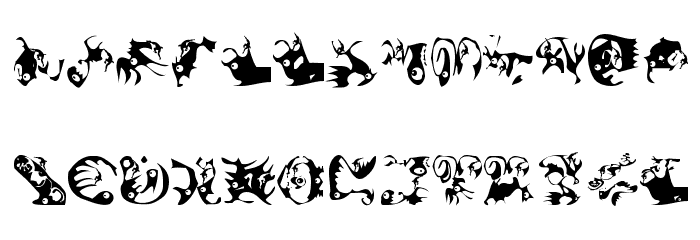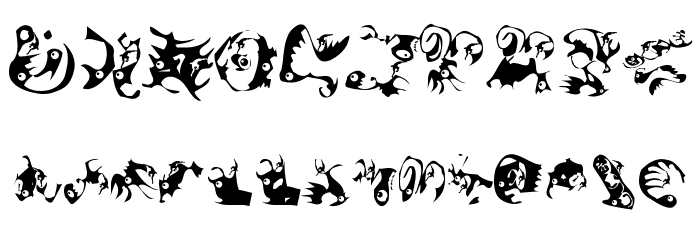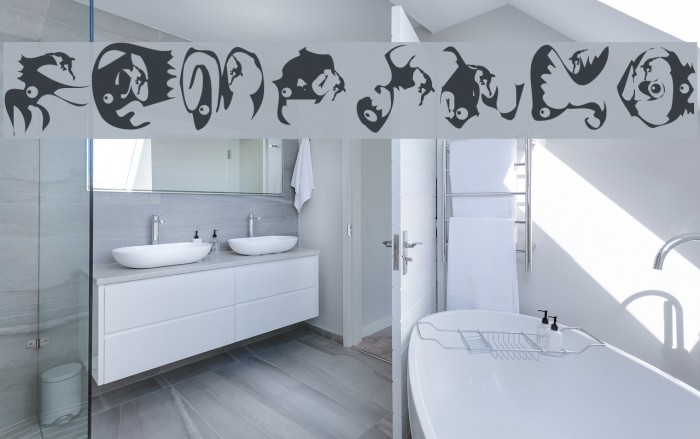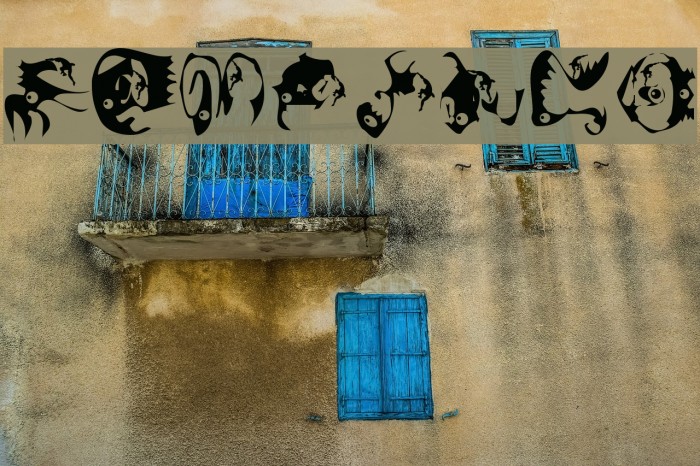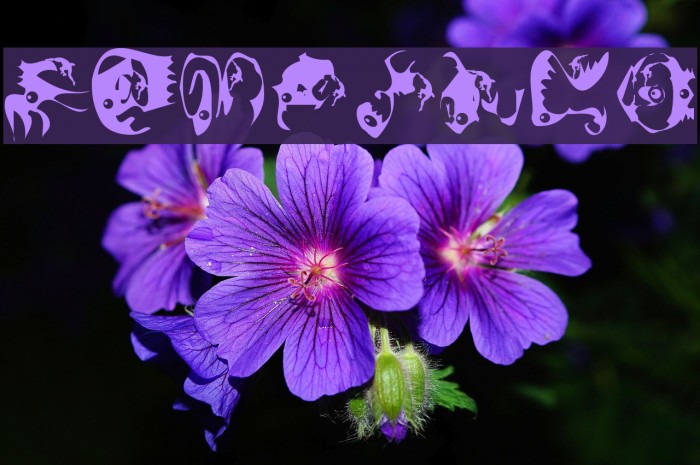
Climbats Font
This font is a highly decorative and whimsical typeface, featuring intricate and playful designs within each character. Each letter is crafted with unique elements that resemble abstract creatures or fantastical shapes, making it stand out as a piece of art in itself. The characters are bold and densely packed with details, creating a striking visual impact. The font's design is consistent across both uppercase and lowercase letters, as well as numbers and special characters, maintaining its artistic theme throughout. Its elaborate style makes it ideal for creative and unconventional projects where a touch of fantasy or eccentricity is desired.
A whimsical and decorative font with intricate, fantastical designs in each character.
- Proposed Projects: Ideal for fantasy-themed posters, children's book covers, creative branding, and artistic invitations.
- Character Spacing: Tight